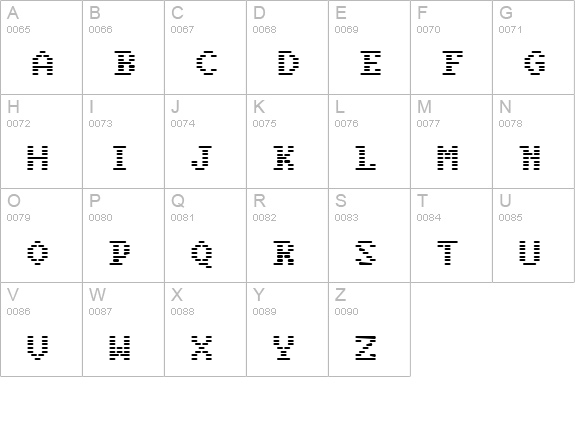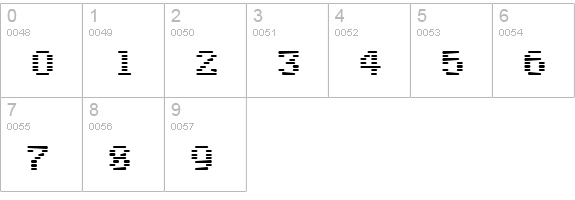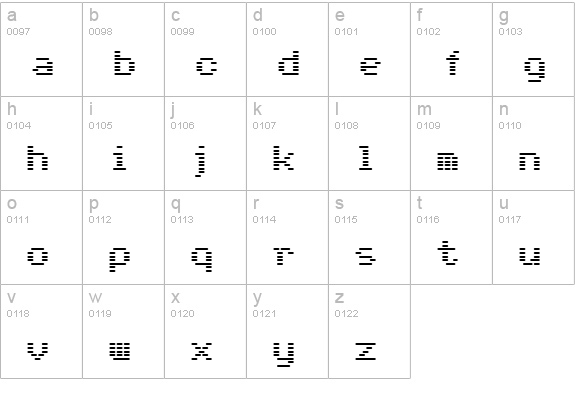
Anger is a gift Font Details
Anger is a Gift font is a powerful and intense typeface that captures the raw emotion of anger with its bold and striking design. This font exudes a sense of strength and defiance, making it perfect for projects that require a touch of rebellion and passion. This font is freely available to download at FontsMarket.com, allowing you to unleash your creativity without any constraints. Whether you're working on a poster, logo, or any other design project, Anger is a Gift font will make a bold statement and leave a lasting impression. Download it now and let your anger speak volumes through your design work.